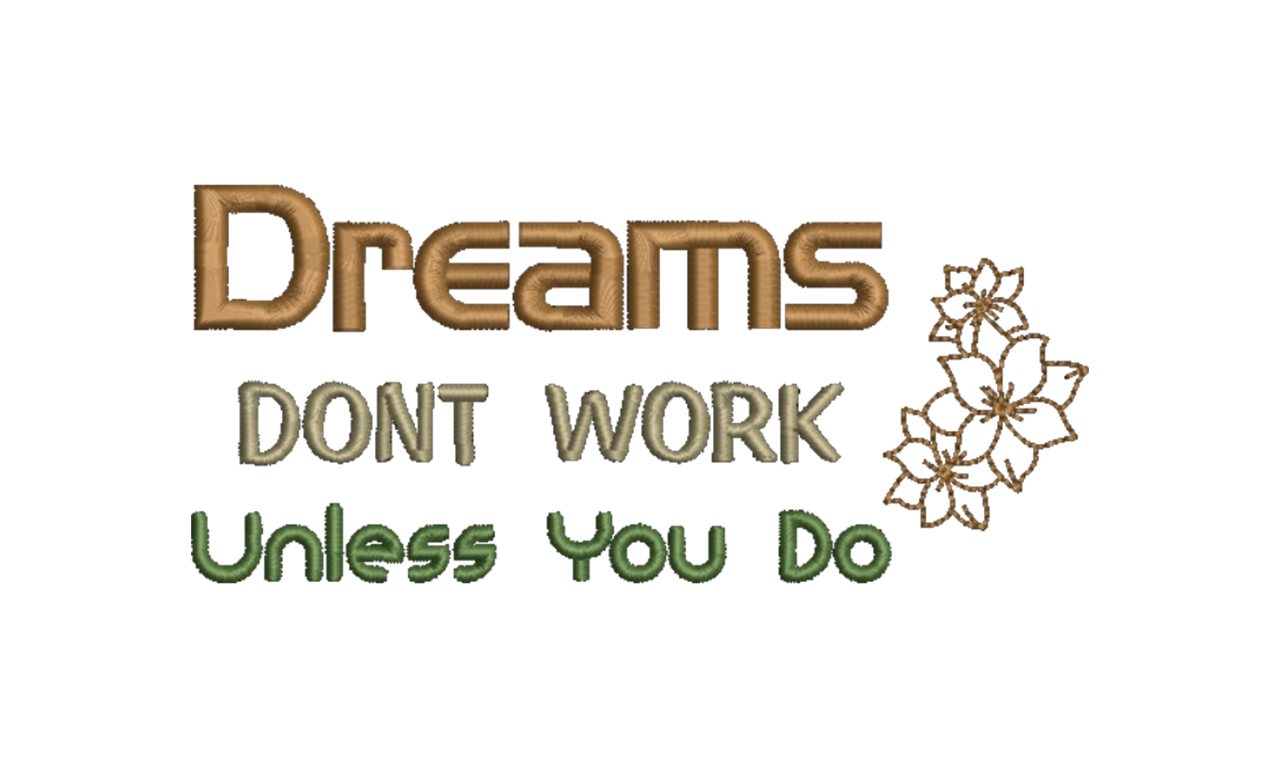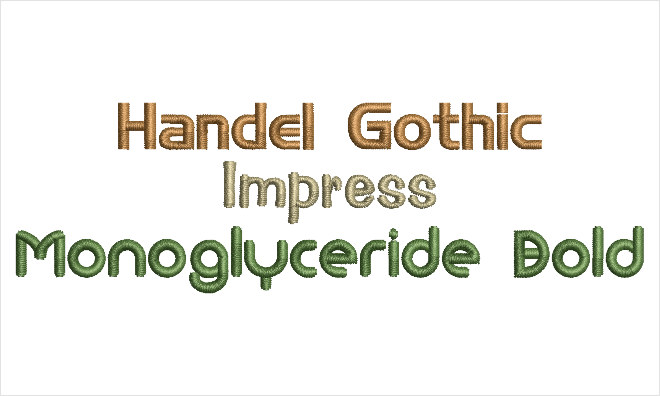
Font Pack #17 - Simple and Clean
This collection brings you 3 fonts that are simple, clean, bold, and easy to read. Works good for medium small to medium size lettering.
Fonts in this pack
Handel Gothic
Clean and consistent flowing font. Use for titles, names where you want a bold medium size look.
Min: 0.3in, 8mm | Max: 0.7in, 18mm
Impress
A font you can use almost anywhere. It works in a small size down to 7mm on many fabrics. Easy to read and a favorite to use.
Min: 0.3in, 8mm | Max: 0.8in, 20mm
Monoglyceride Bold
Bold and easy to read.
Min: 0.4in, 10mm | Max: 0.6in, 15mm